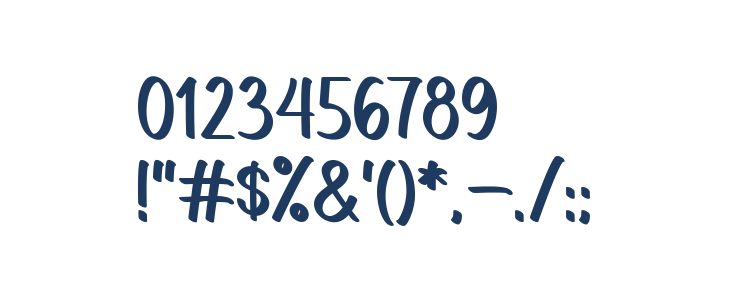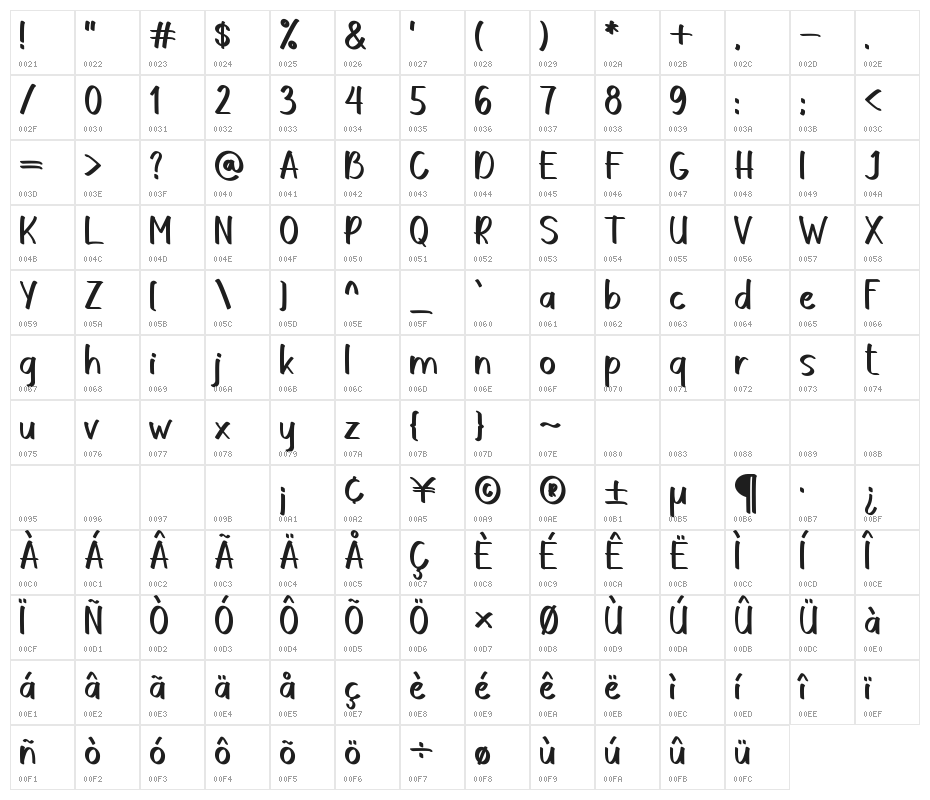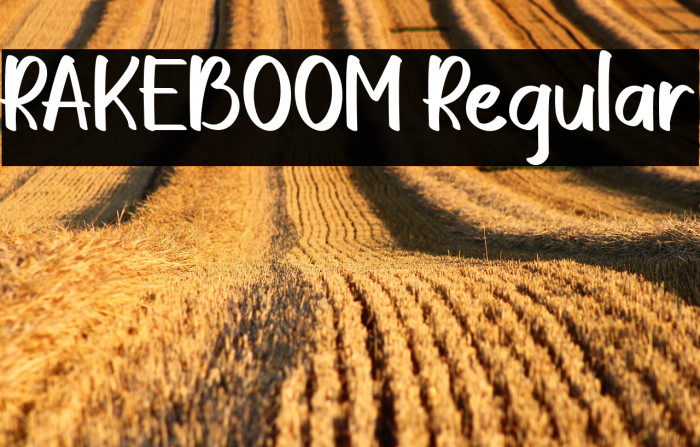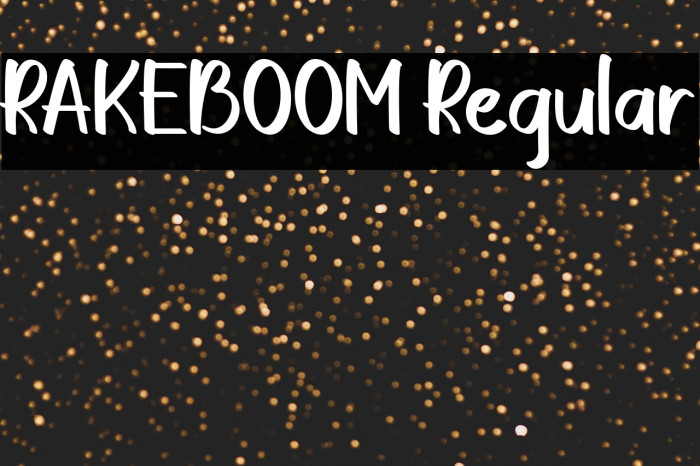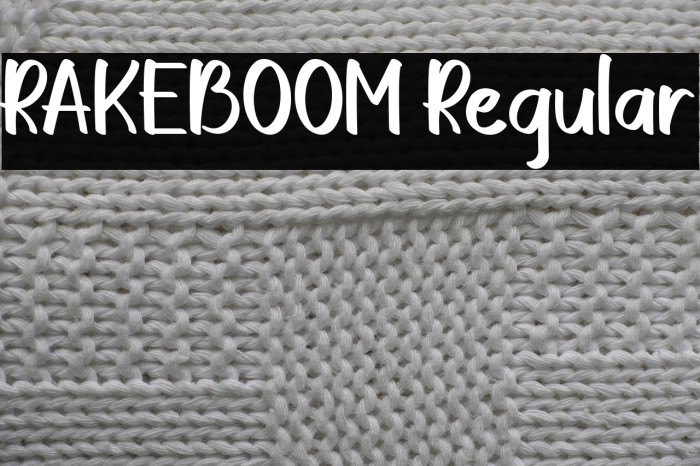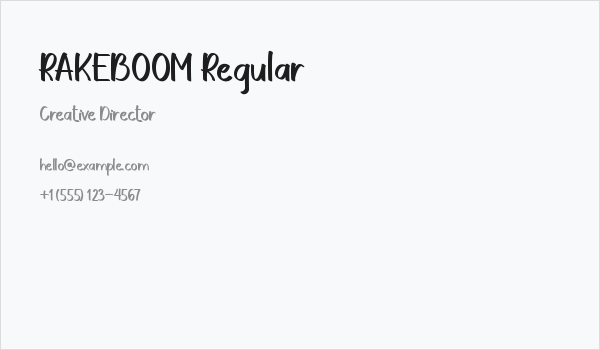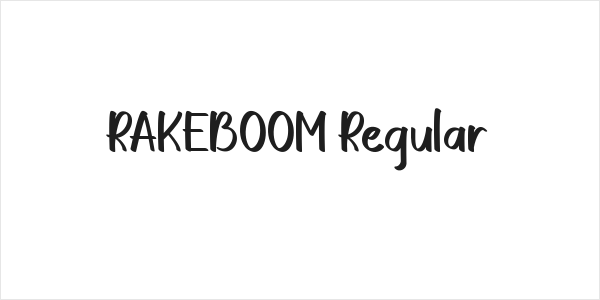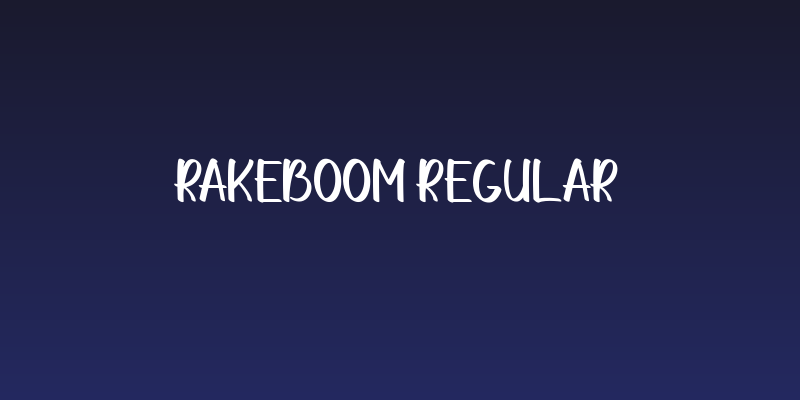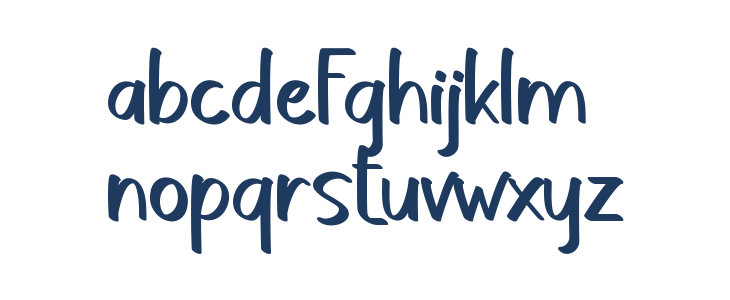
RAKEBOOM Regular Font
RAKEBOOM Regular Description
This font features a playful and energetic style with a handwritten appearance. The characters are bold and slightly irregular, giving them a lively and informal feel. The uppercase letters are tall and narrow, while the lowercase letters maintain a consistent height, contributing to a cohesive look. The numbers and special characters are designed with the same playful aesthetic, making them suitable for creative and fun projects. The strokes are thick, providing a strong presence on the page, and the overall design is both approachable and dynamic.
Overall StylePlayful
Proposed ProjectsIdeal for children's books, playful branding, casual invitations, and social media graphics.